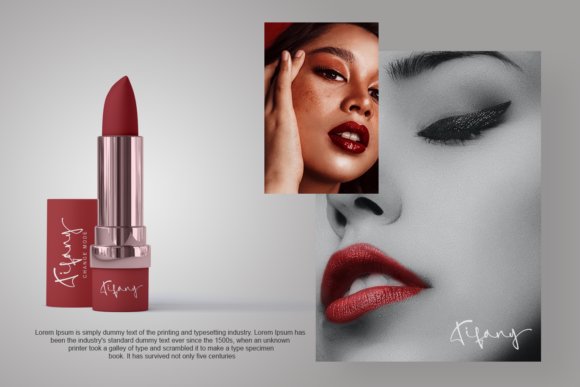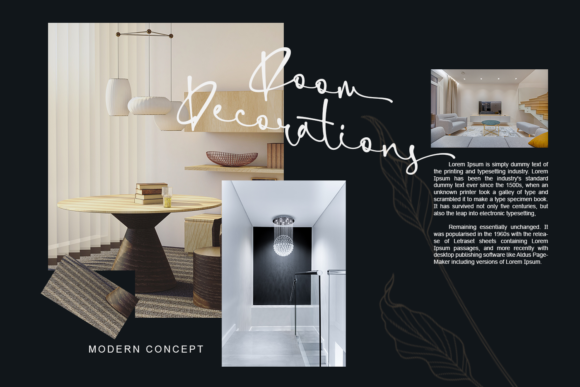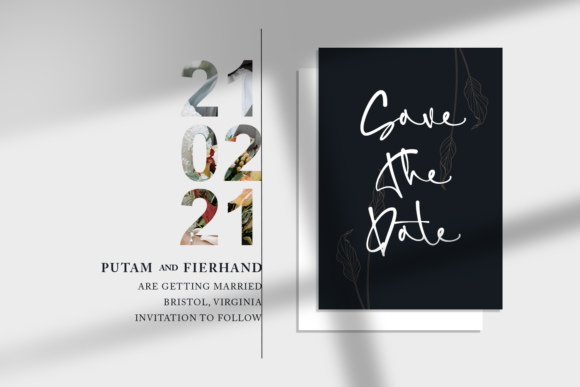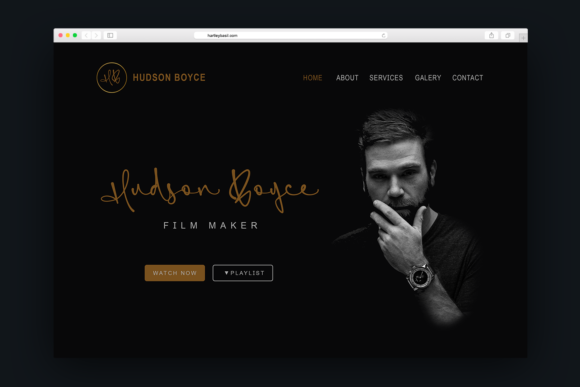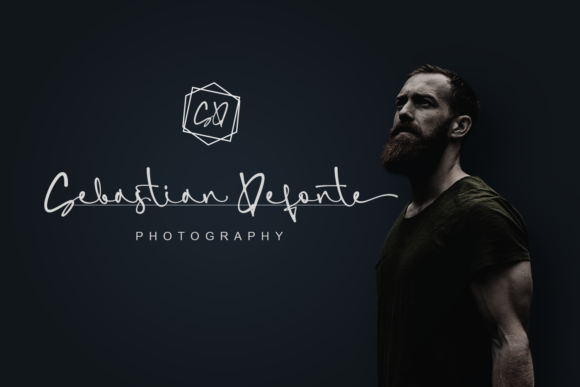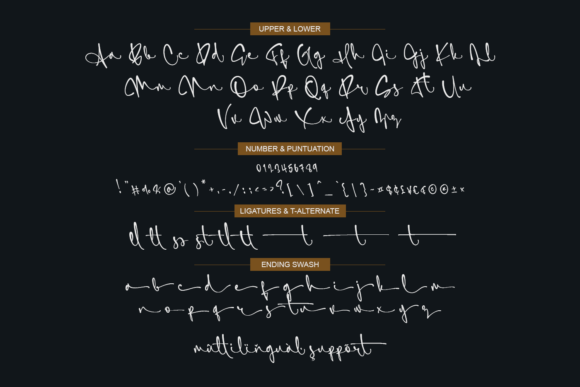
Introduction to Simfony Sign Font
As a designer, have you ever found yourself stuck in front of a blank page, struggling to bring your creative vision to life? You’ve poured over inspiration boards, browsed through design blogs, and scoured the internet for the perfect font to elevate your project. And then, it happens – you stumble upon a font that makes your heart skip a beat, and everything falls into place.
This is exactly what the Simfony Sign Font can do for you. This exquisite handwritten font is a game-changer for designers looking to add a touch of elegance and sophistication to their creative projects. With its classy calligraphic influences and fresh, contemporary feel, it’s no wonder why designers are falling in love with this stunning font.
Whether you’re working on a high-end branding project, a wedding invitation, or a simple social media graphic, the Simfony Sign Font is a valuable design resource that’s sure to take your project to the next level. And the best part? You can download it for free, with a transparent background, making it the perfect addition to any high-quality design.
Key Features of Simfony Sign Font
- Designed to be versatile and easy to use, making it an excellent resource for graphic designers and digital artists.
- Unique characteristics include a modern, sleek aesthetic and a wide range of customization options.
- Perfect for use in digital designs, such as logos, icons, and graphics, as well as in print materials like business cards and brochures.
Honest Review: Simfony Sign Font
As a designer, I’m always on the lookout for high-quality design resources to elevate my creative projects. Recently, I came across the Simfony Sign Font, and I was excited to give it a try.
What works well is the fact that this font is available for free download with a transparent background, making it super easy to integrate into my designs. The quality of the font is top-notch, with clean lines and a modern aesthetic that’s perfect for a variety of creative projects.
Some of the key features that I appreciate about the Simfony Sign Font include:
- High-quality design that’s perfect for logos, signage, and other creative projects
- Transparent background makes it easy to customize and integrate into designs
However, I did encounter some limitations with the Simfony Sign Font, such as:
- Some users may find the font a bit too minimalist, which may not be suitable for all design projects
- The font family is relatively small, which may limit its versatility
Overall, I’m impressed with the Simfony Sign Font, and I think it’s a great addition to any designer’s toolkit. While it may not be perfect, it’s a high-quality design resource that’s perfect for a variety of creative projects. ⚠️ Just be aware of its limitations, and you’ll be golden! ✨
Simfony Sign Font
In Adobe Photoshop or Illustrator, you can use the Simfony Sign Font by creating a new text layer and selecting the font from the font menu. You can also use the font in combination with other design elements to create a unique and eye-catching design. With its transparent background, Simfony Sign Font is ideal for creating high-quality designs that can be used in various creative projects.
To use Simfony Sign Font in PowerPoint or Word, start by creating a new document or presentation. Click on the “Text” box and select the Simfony Sign Font from the font dropdown menu. You can adjust the font size, color, and style to fit your design needs. With its free download option, Simfony Sign Font is a great design resource for anyone looking to add a creative touch to their presentations or documents.
Here are a few tips for getting the most out of Simfony Sign Font:
- Use it in combination with other design elements to create a unique and eye-catching design.
- Adjust the font size, color, and style to fit your design needs.
- Use the font in a creative project, such as a logo or branding materials.
Simfony Sign Font is commonly used in the following creative projects:
- Logos and branding materials.
- Business cards and resumes.
Q: Can I use the Simfony Sign Font with a transparent background?
Yes, the Simfony Sign Font is designed to work well with transparent backgrounds. This makes it ideal for use in creative projects that require a high level of design flexibility, such as logo design or graphic design.